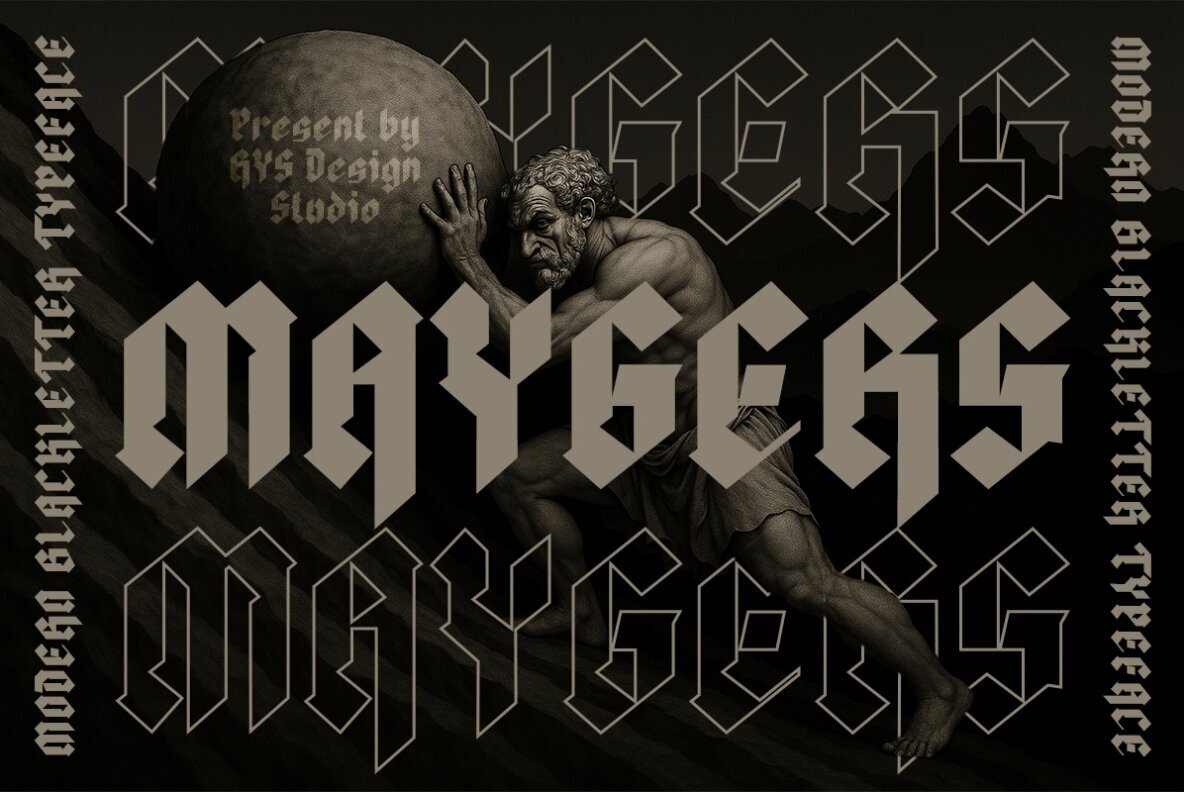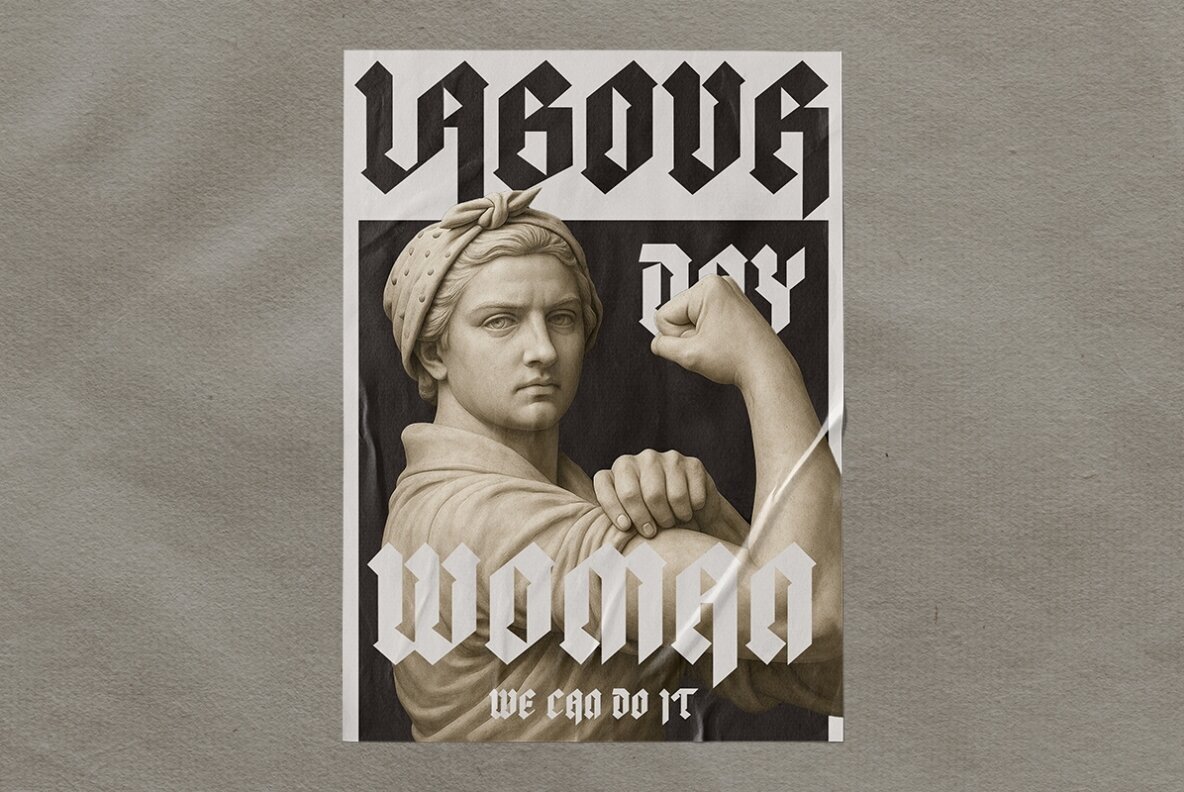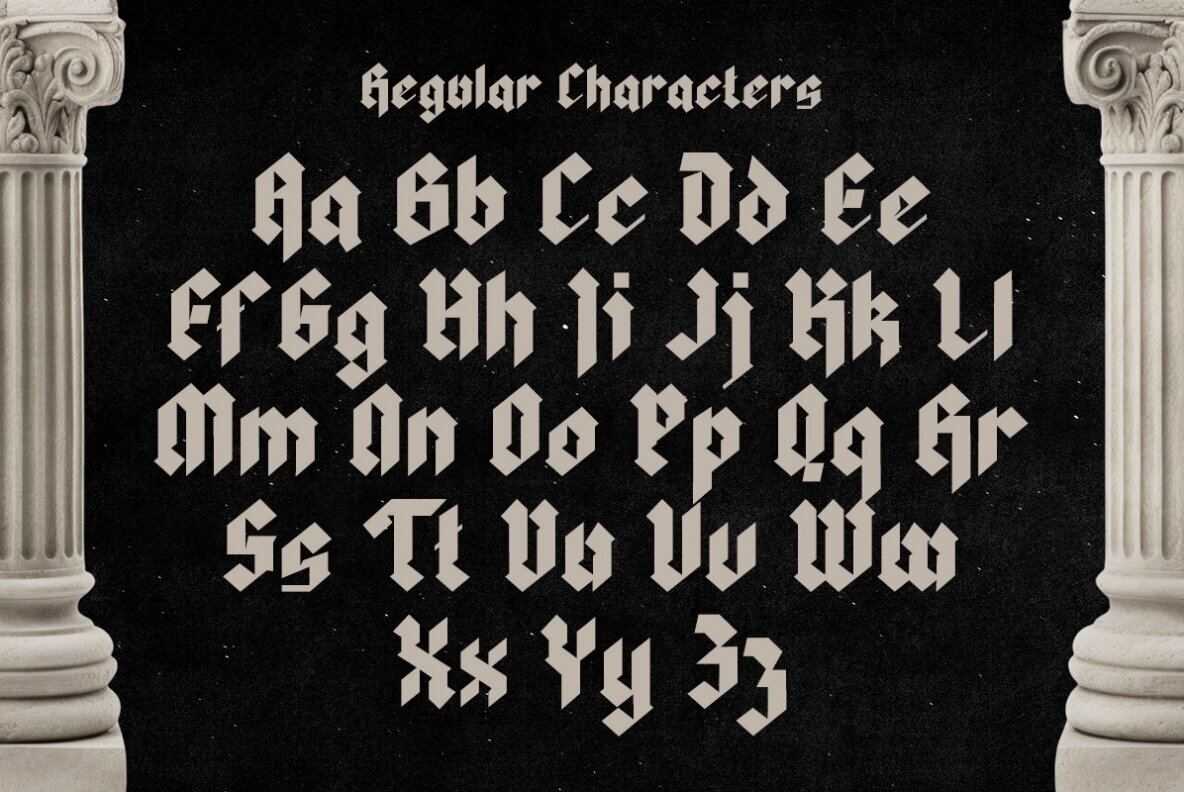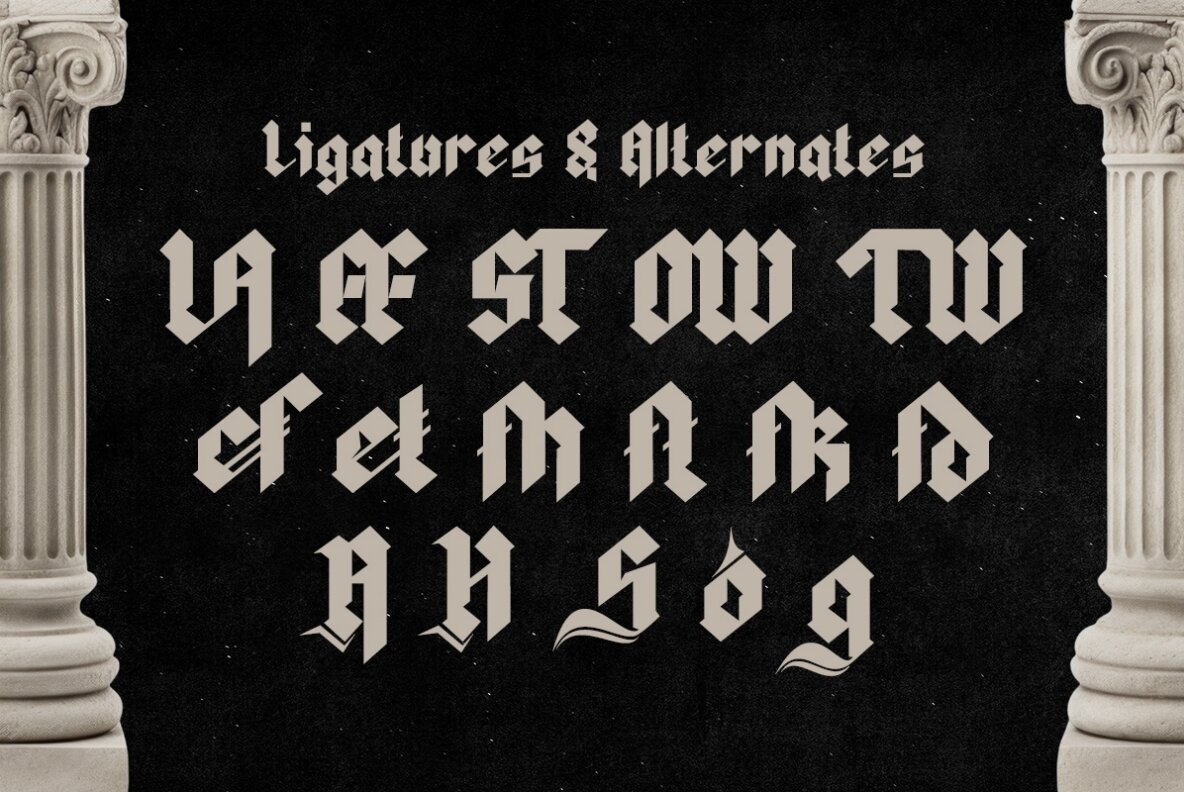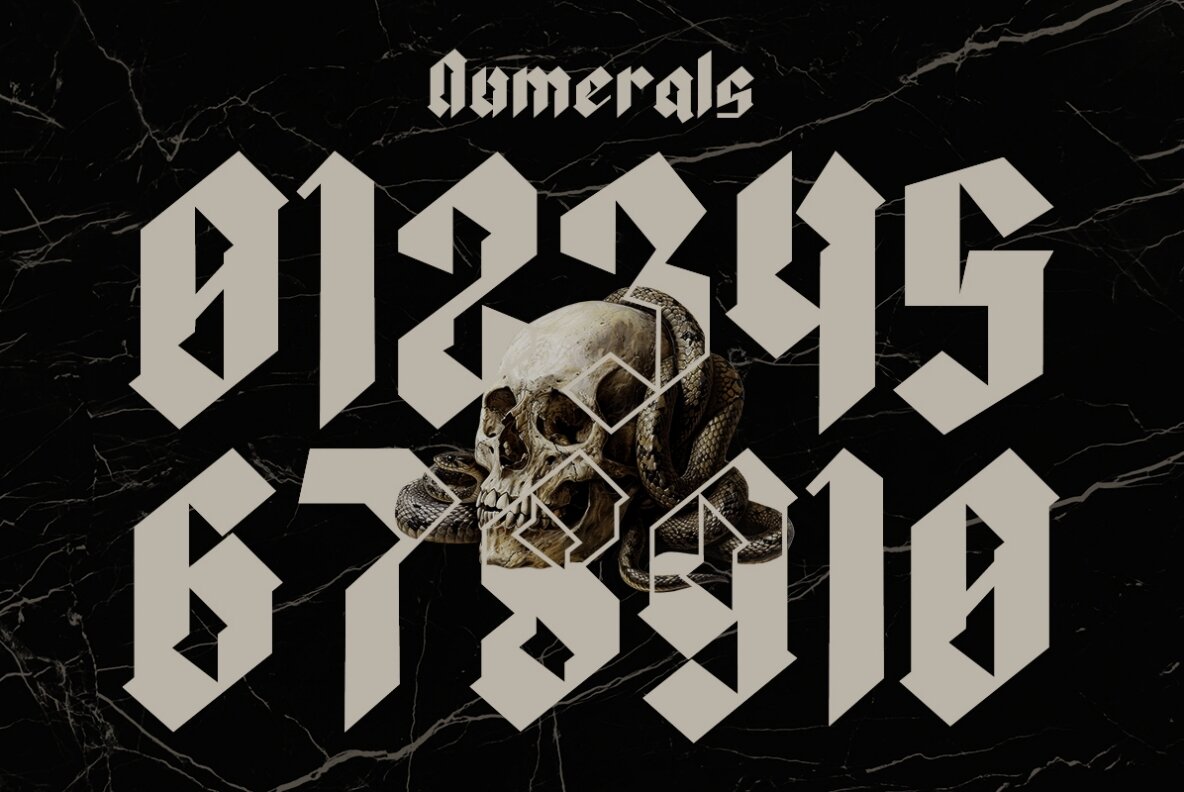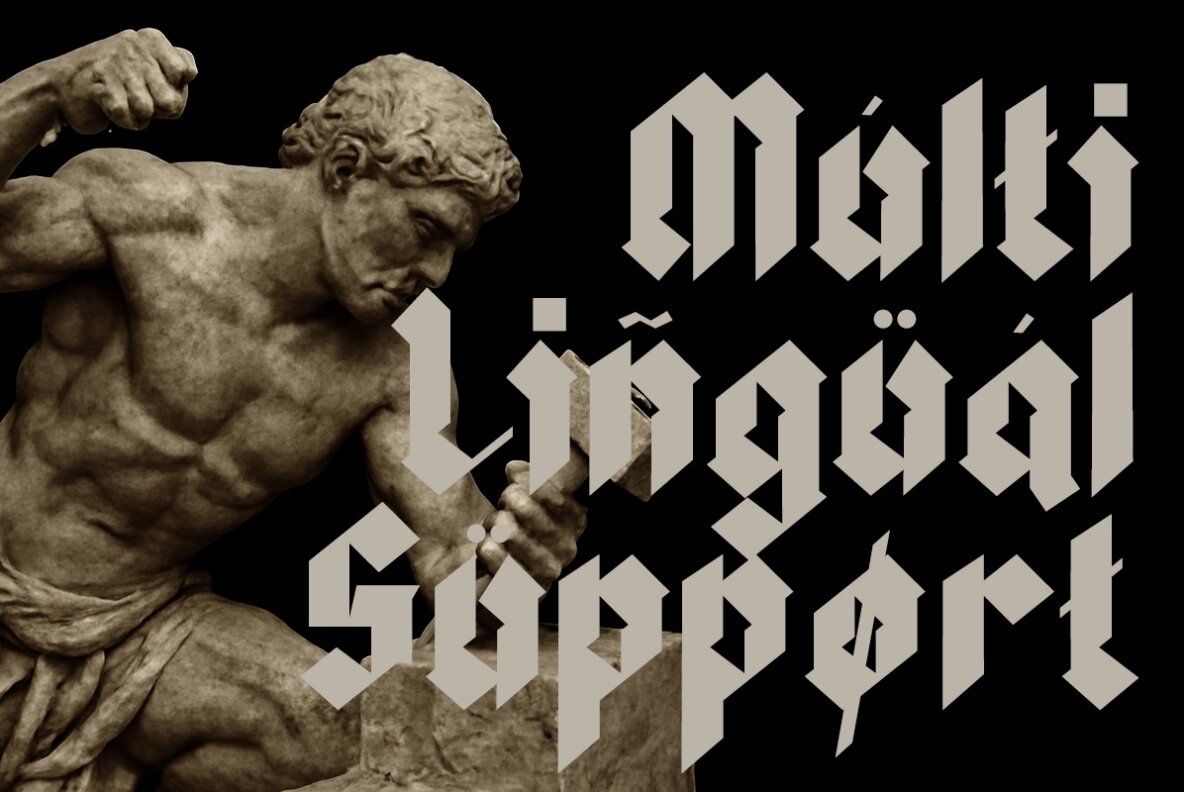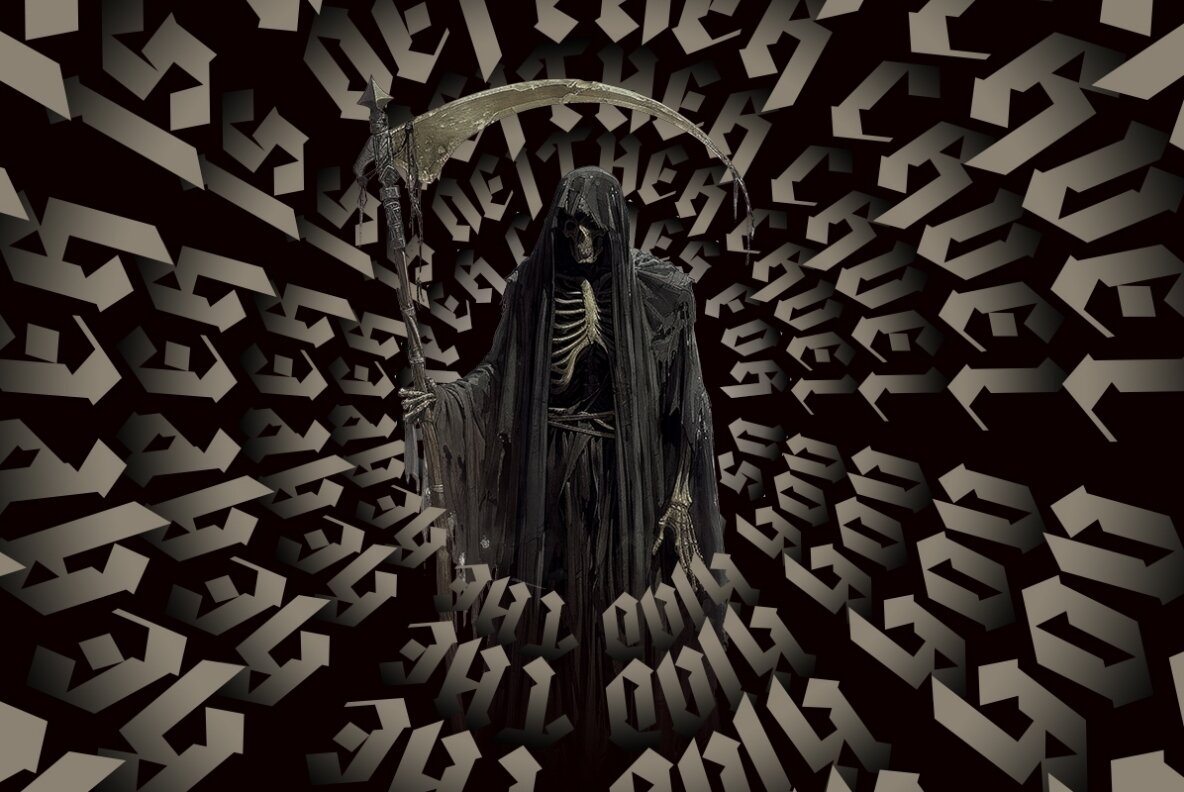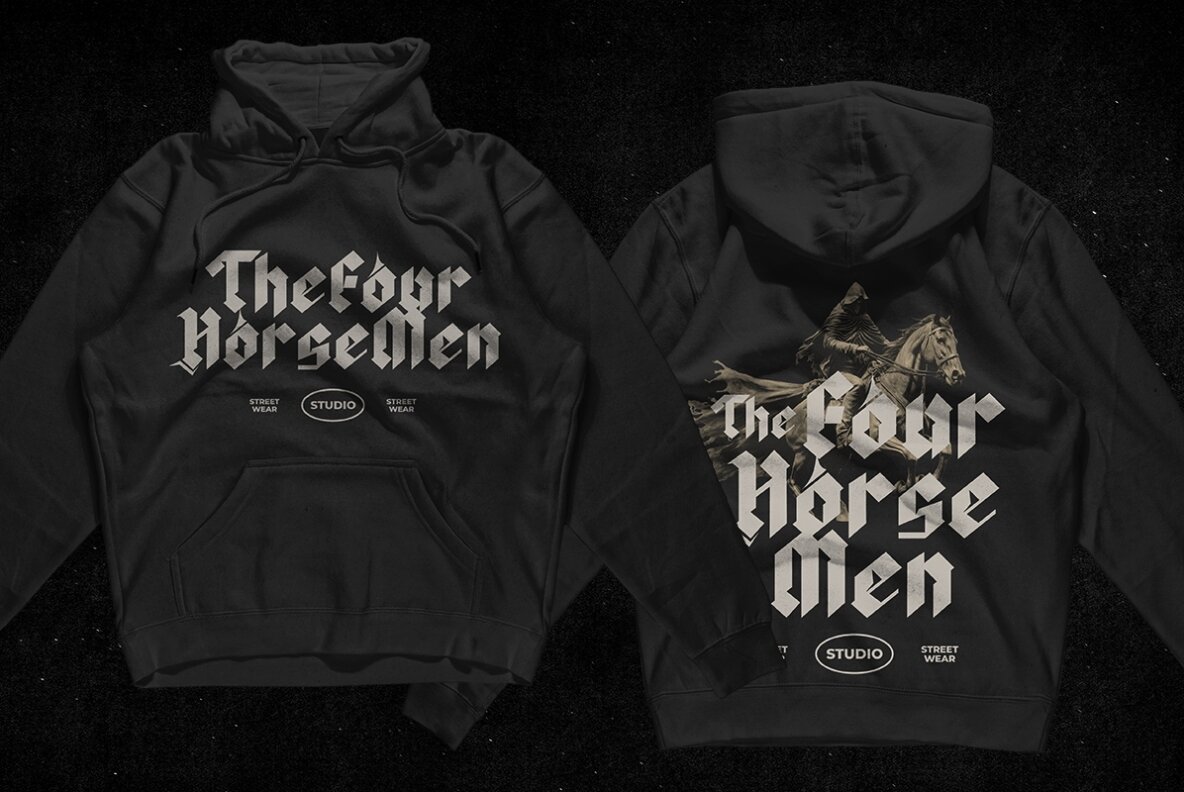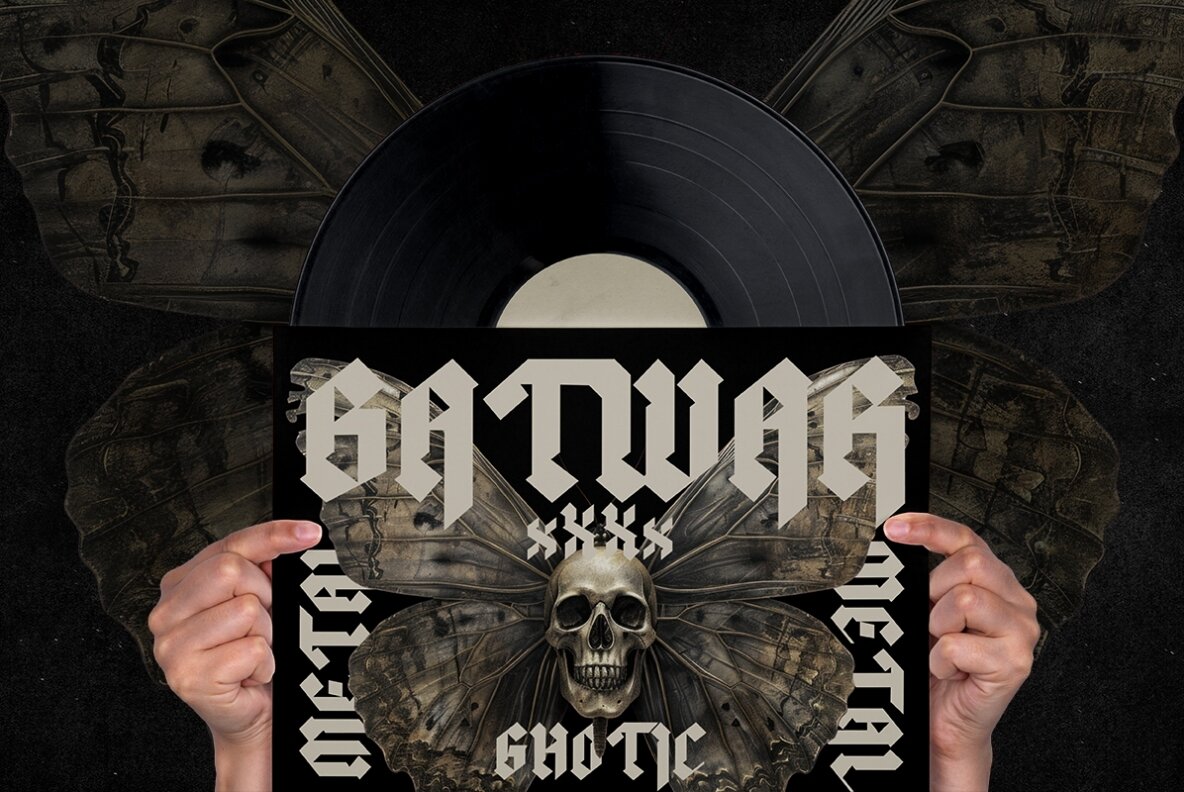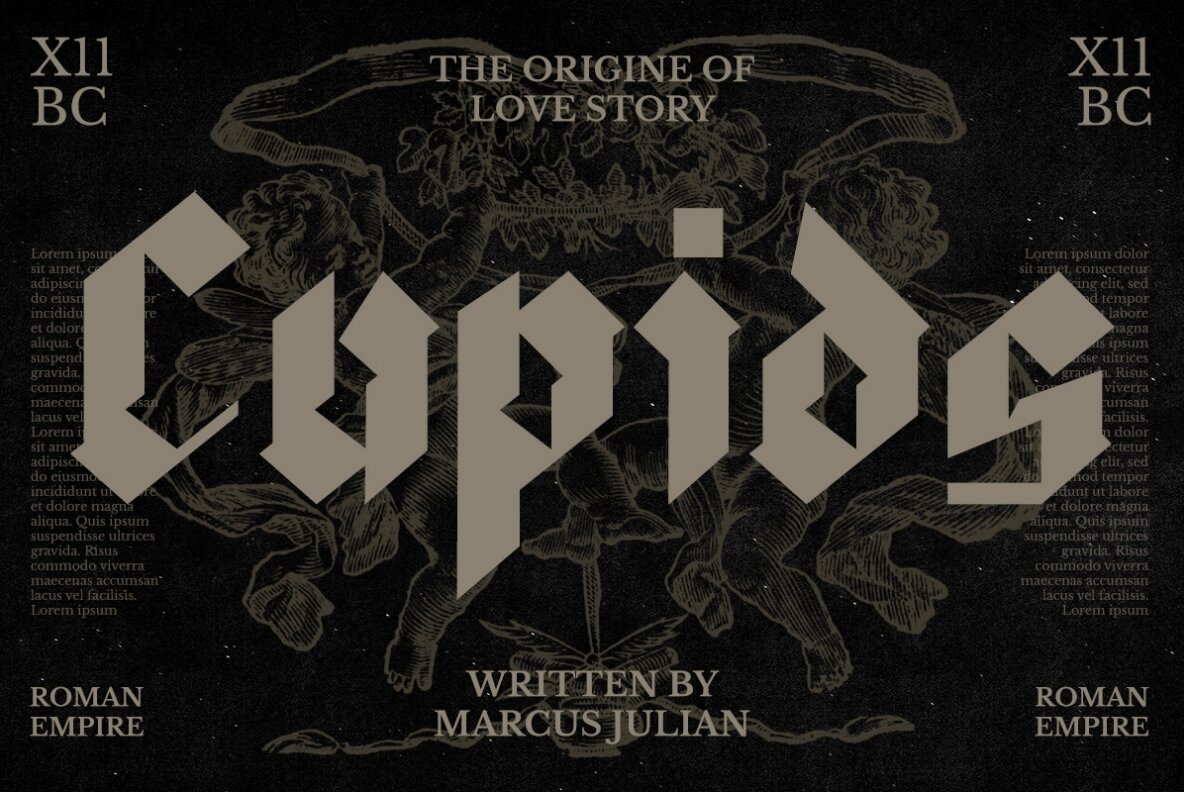
Maygers Font
RYS MAYGERS
Maygers is a striking blackletter typeface that seamlessly blends traditional gothic elegance with a modern edge. Inspired by the resilience of its namesake workers and the myth of Sisyphus, this font exudes a bold and rebellious spirit. Every meticulously designed curve and edge conveys both grace and strength. Ideal for projects seeking a dramatic flair, Maygers is well-suited for branding, streetwear, music artwork, posters, logos, calligraffiti, product packaging, and editorial design. Its unique style promises to make a powerful impact wherever it's applied.Rys Maygers: A Gothic Tribute in Typography